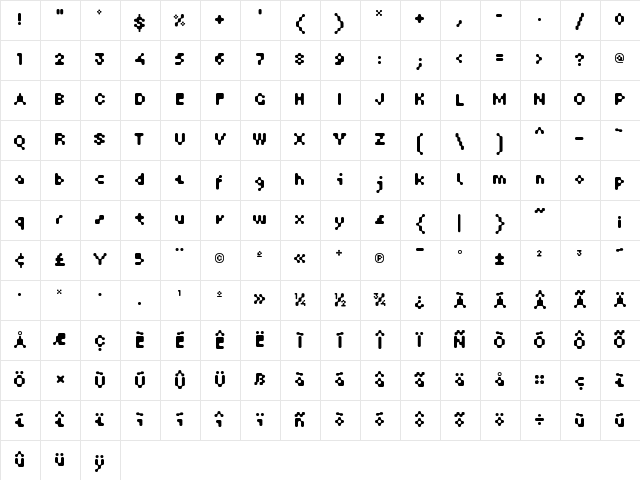
MoonbaseAlpha Regular Free Font
MoonbaseAlpha Regular
Design Context for MoonbaseAlpha
MoonbaseAlpha is a composed and adaptable typeface that performs quietly and consistently across a wide range of design contexts.